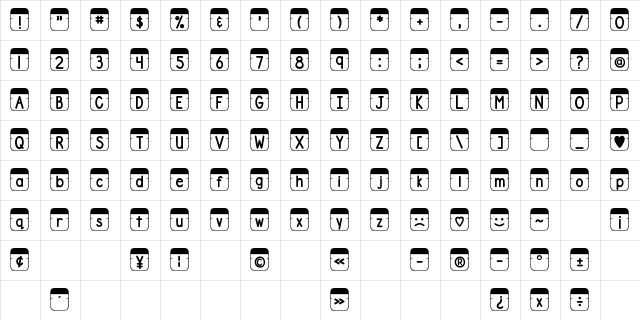
DJB File Folder Tabs Regular
| Designer | Darcy Baldwin |
Design Context for DJB File Folder Tabs Typeface
DJB File Folder Tabs offers clean, dependable letterforms without strong stylistic allegiance, making it a practical choice for designers who need flexibility.